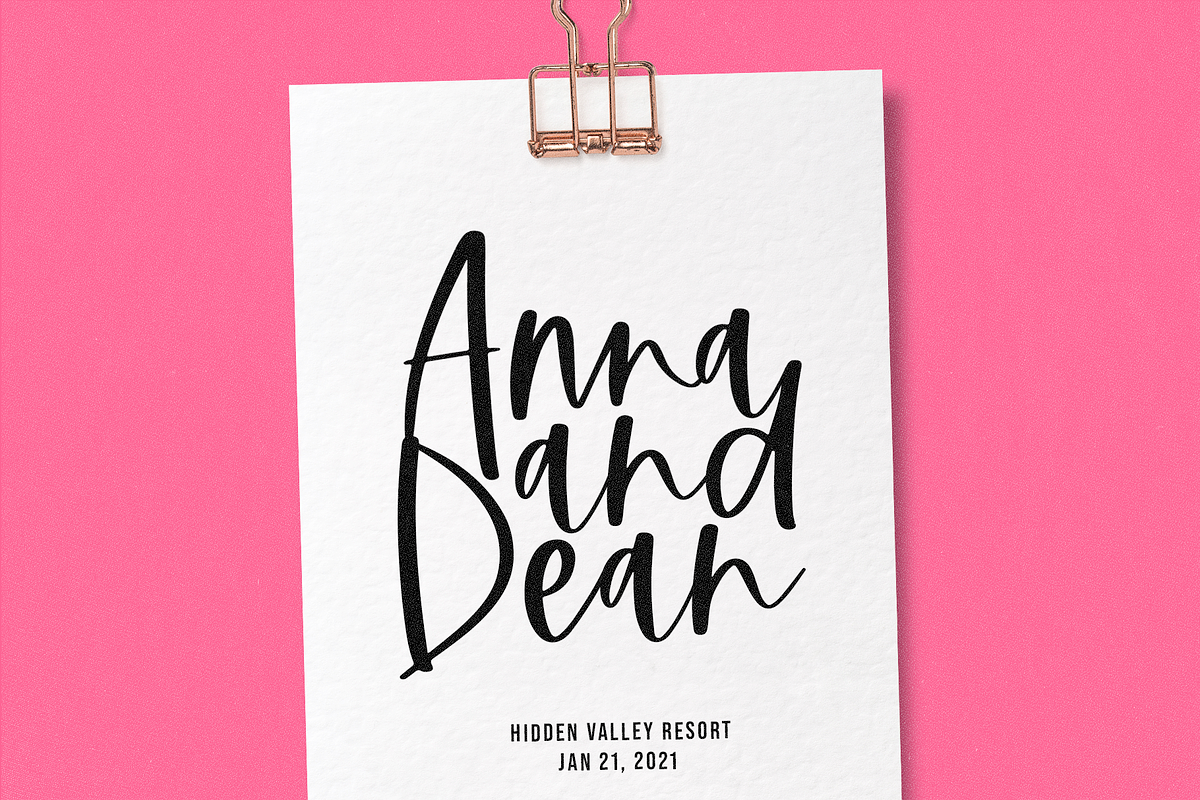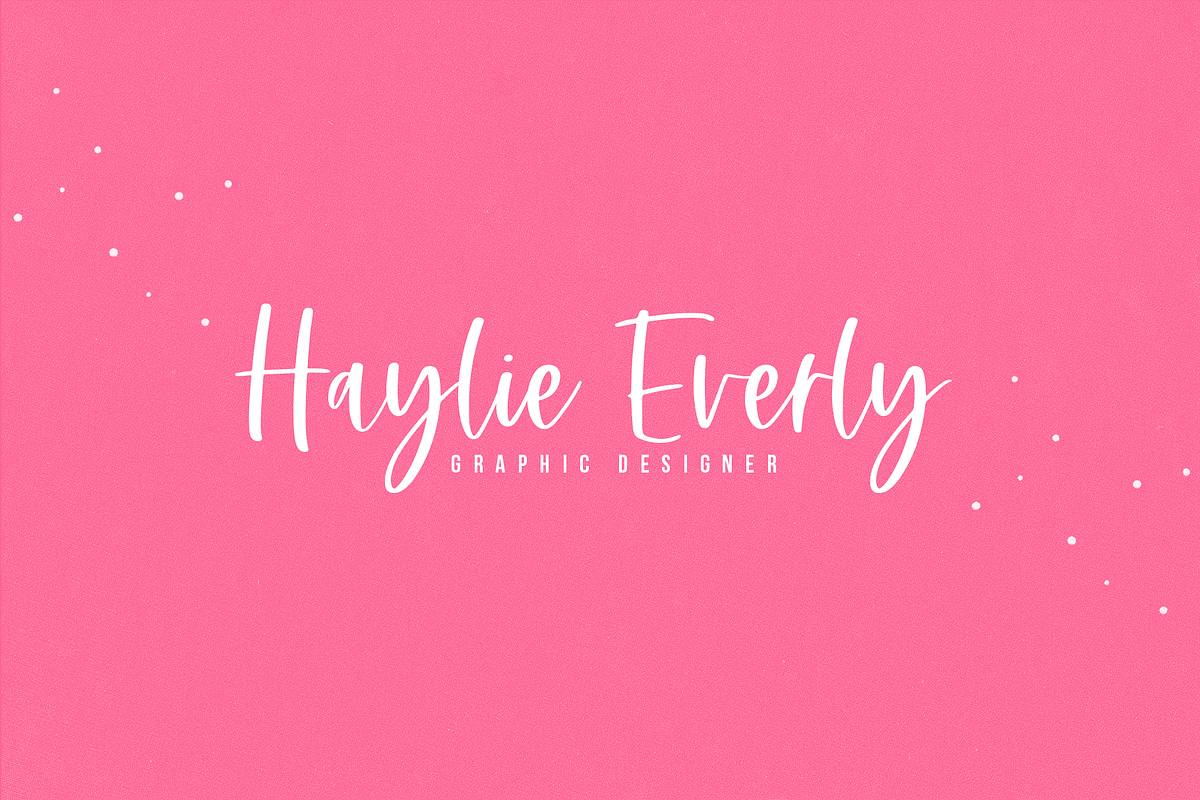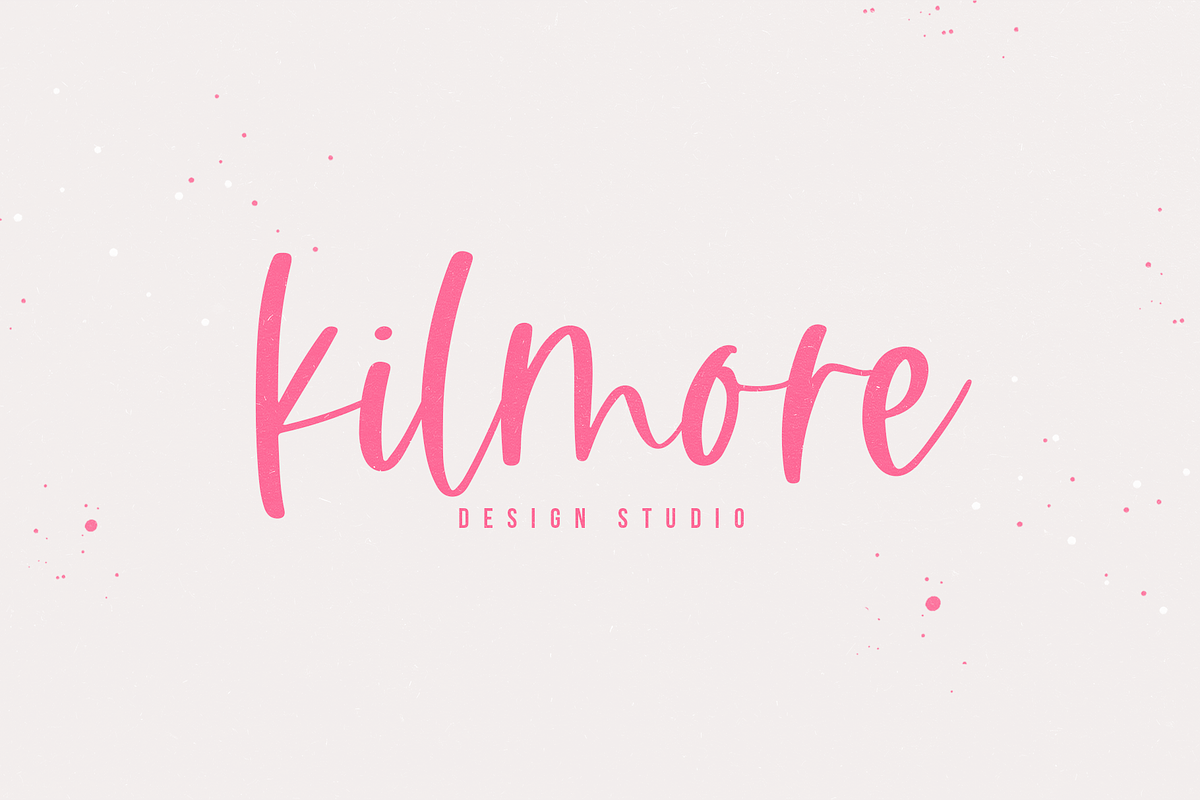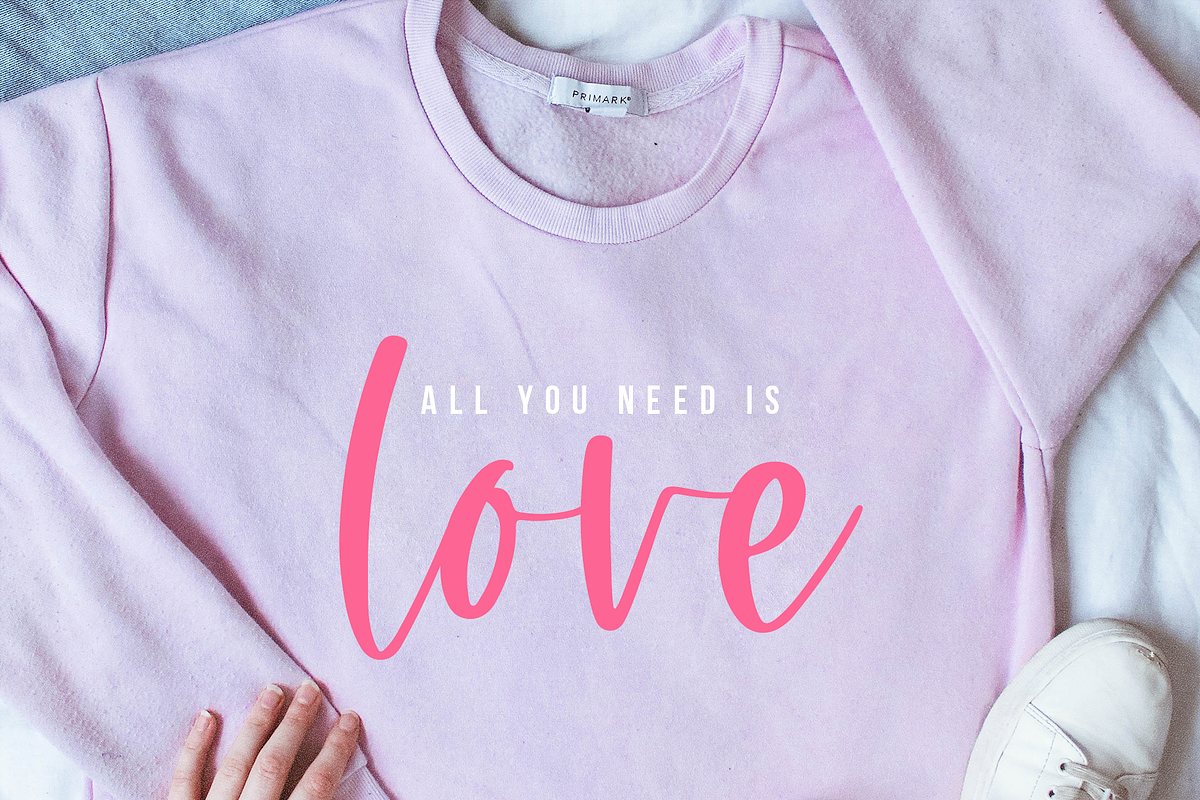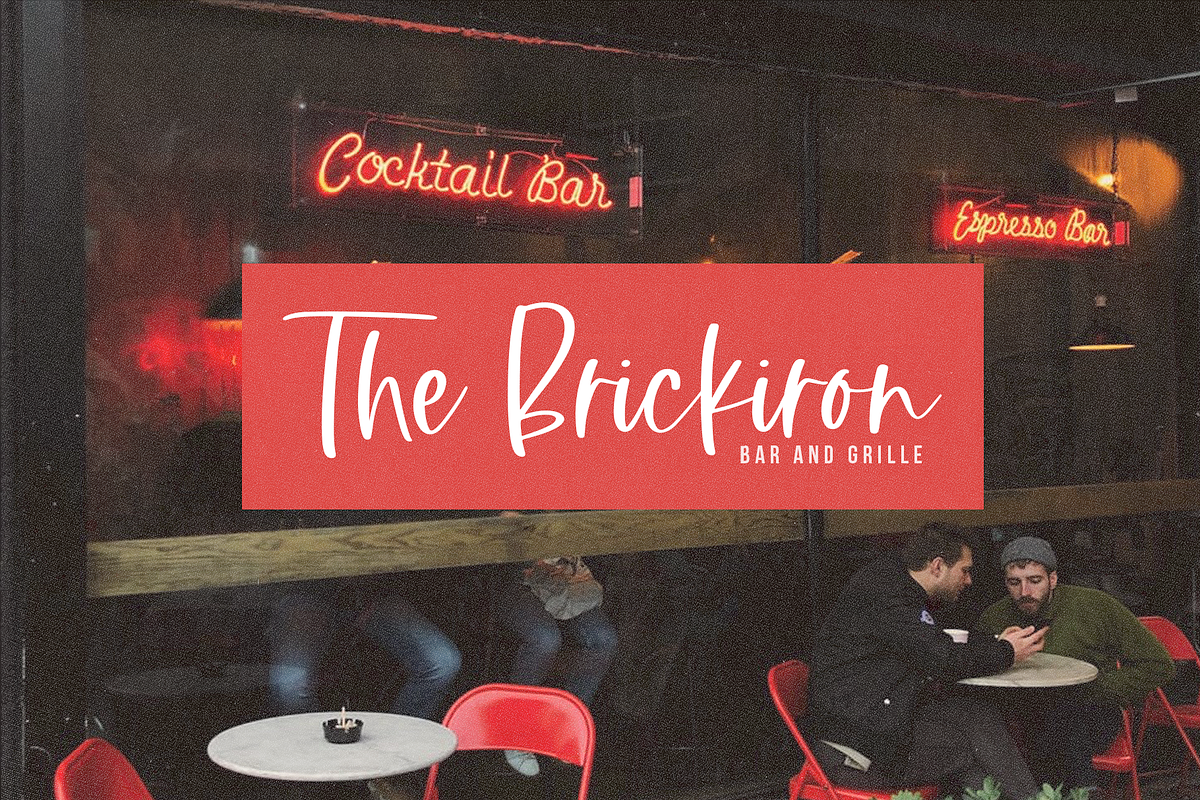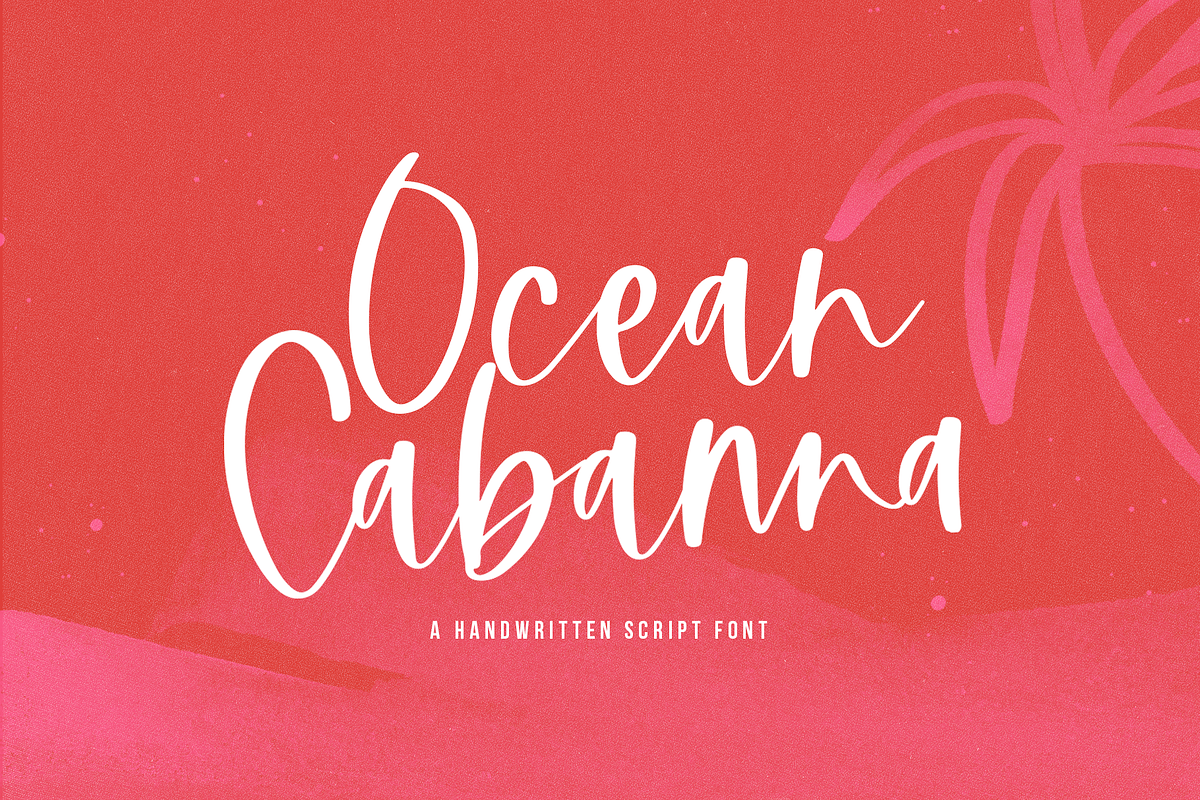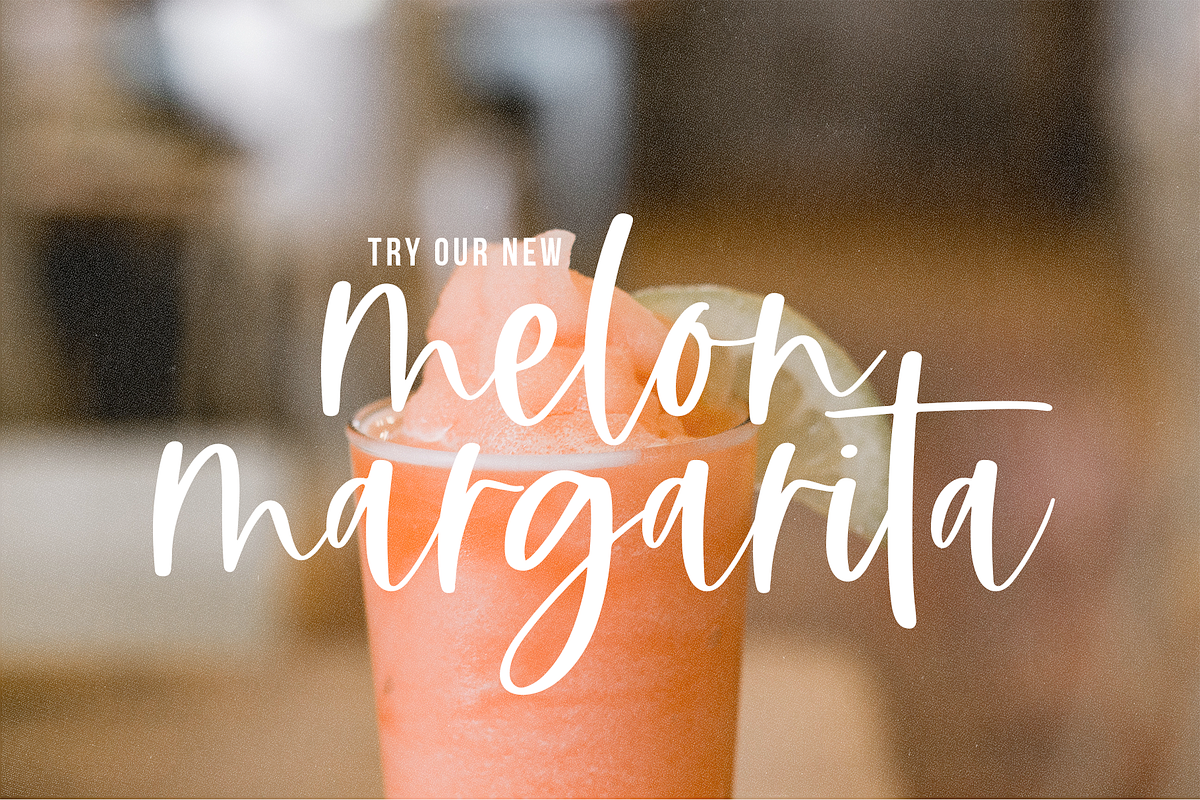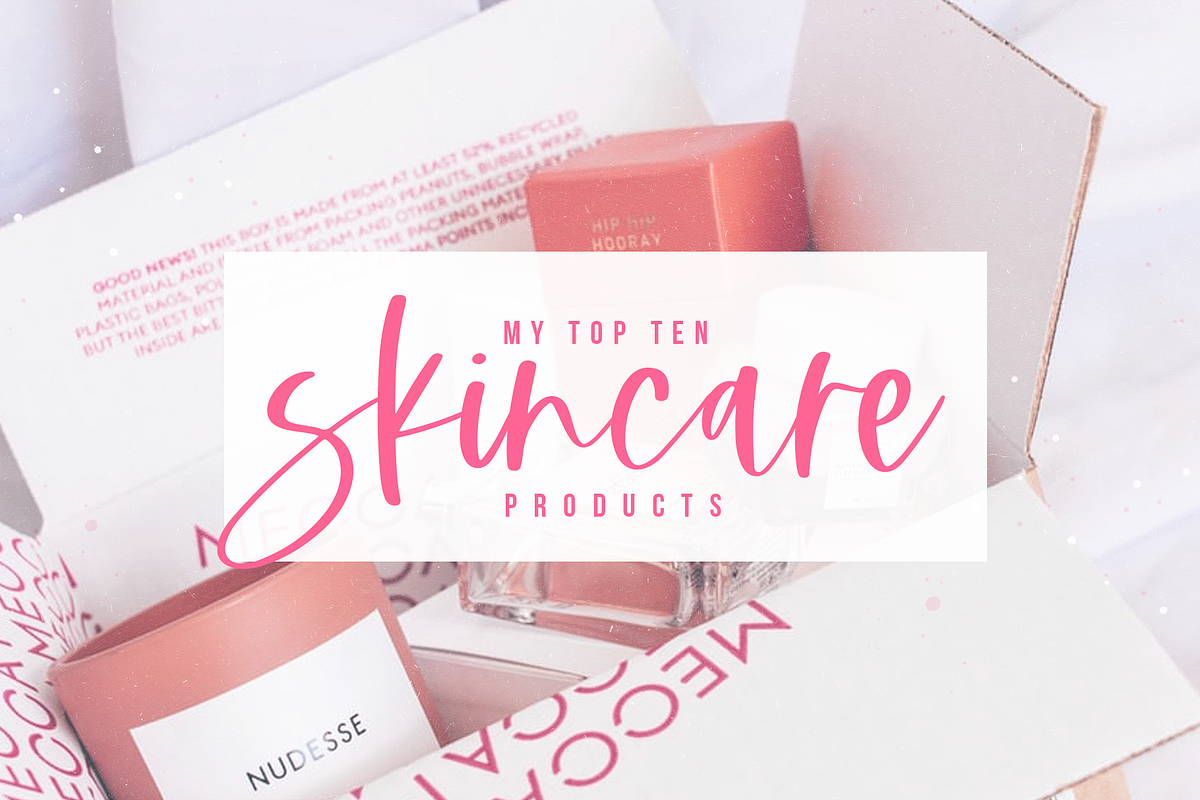
Ocean Cabanna | Script Font
Ocean Cabanna is a handwritten font in a modern calligraphy style. This script font is perfect for branding and web.
Use this font for business cards, logos, branding, websites, prints, svg designs, shirts, mugs, quotes, social media and more!
Ocean Cabanna | Script Font by KA Designs fits naturally into Branding, posters, packaging, typography.